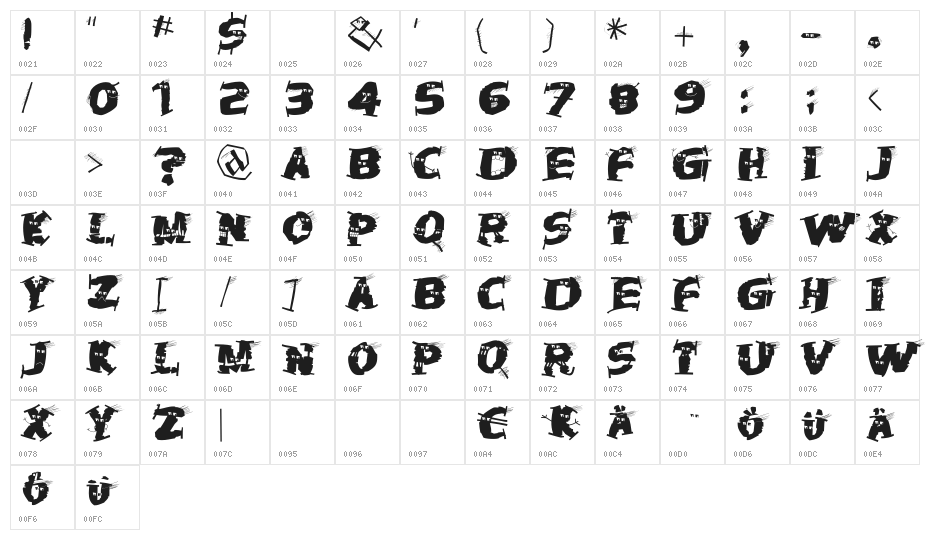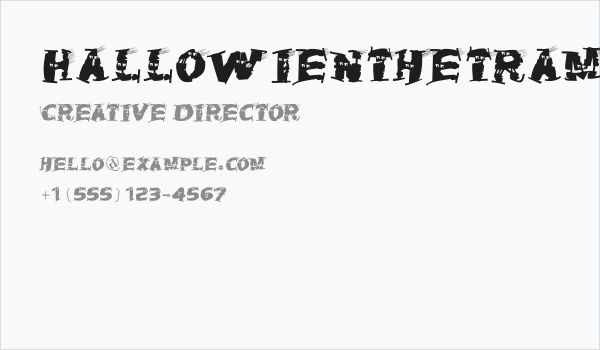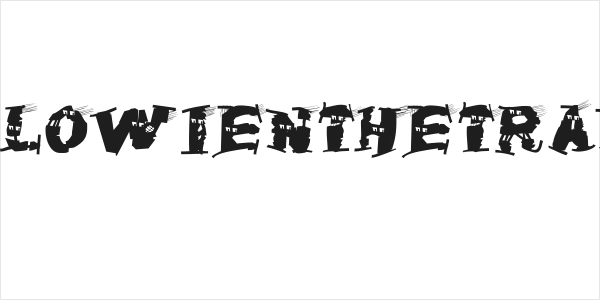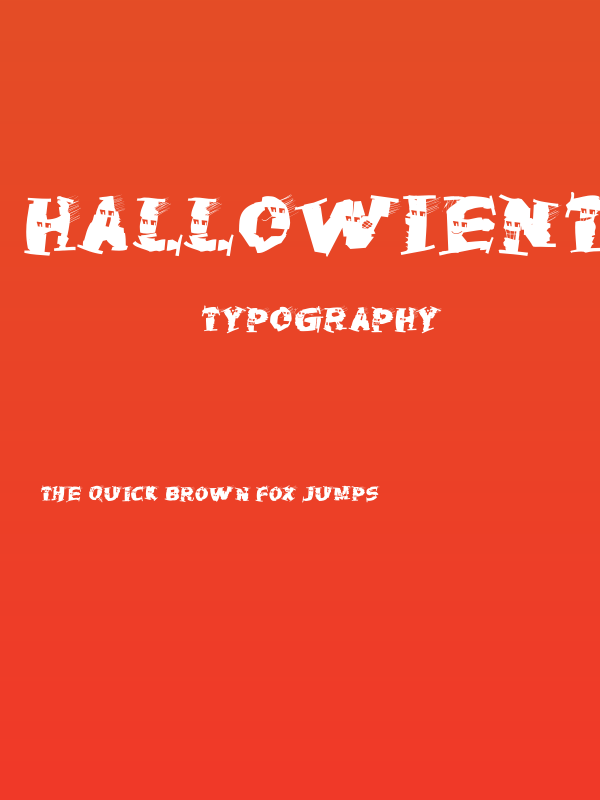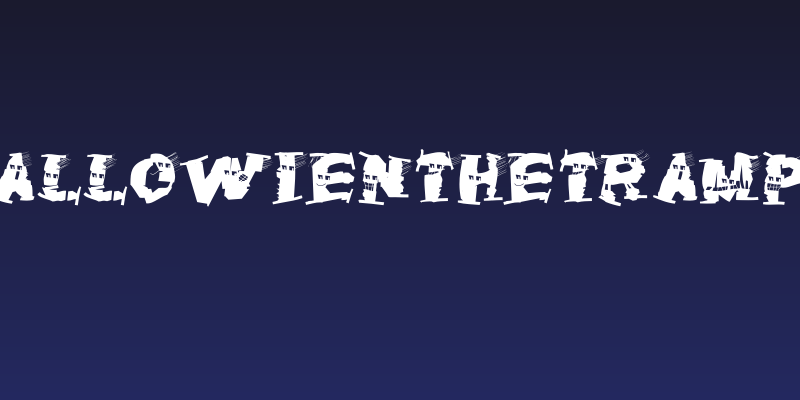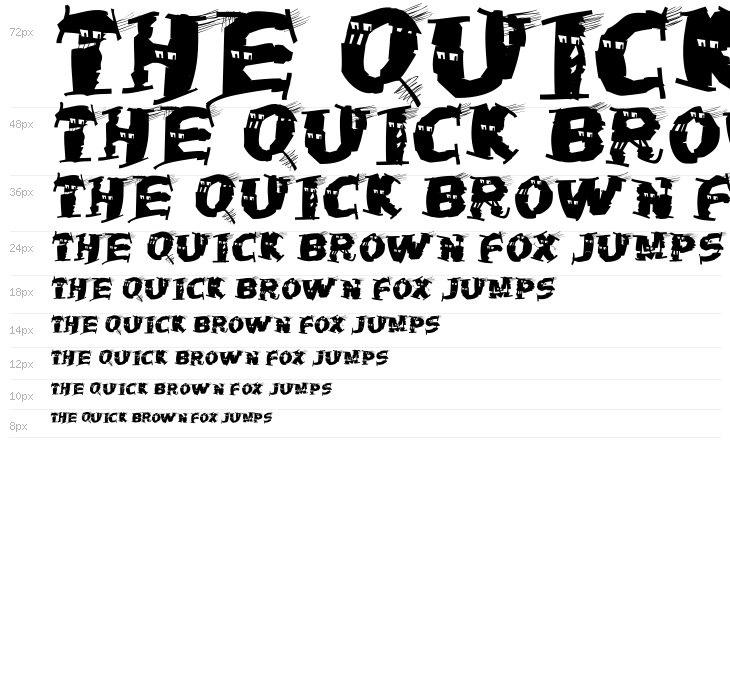
HalloWienTheTramps Font
HalloWienTheTramps Description
This font features a bold and distressed style, with each character appearing as if it has been scratched or eroded. The uppercase and lowercase letters maintain a consistent rugged appearance, with jagged edges and irregular shapes that give it a chaotic and energetic feel. The numbers and special characters follow the same aesthetic, adding to the overall theme of roughness and unpredictability. This font is ideal for projects that require a grungy, rebellious look, such as Halloween-themed designs or edgy posters.
| Proposed Projects | Perfect for Halloween-themed designs, edgy posters, album covers, and rebellious branding. |